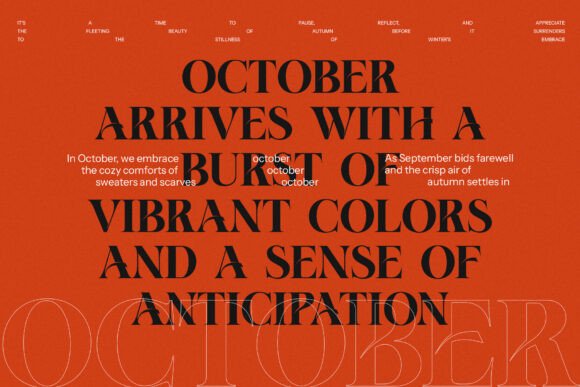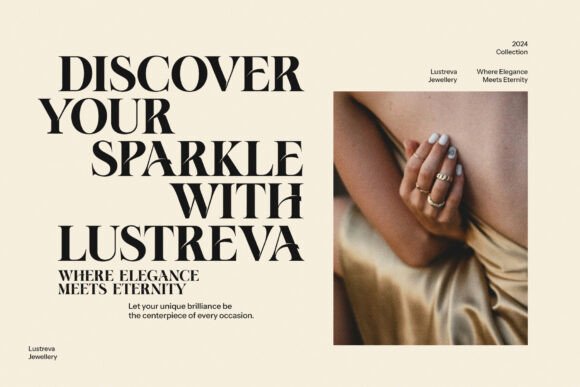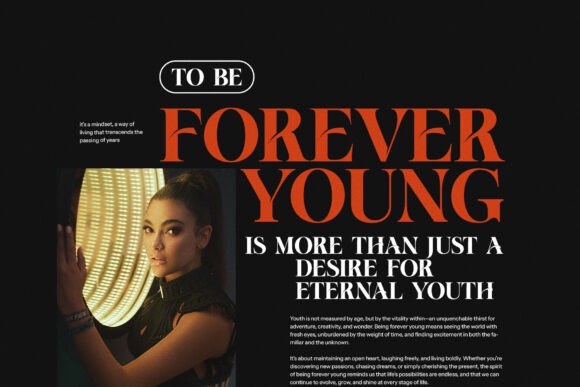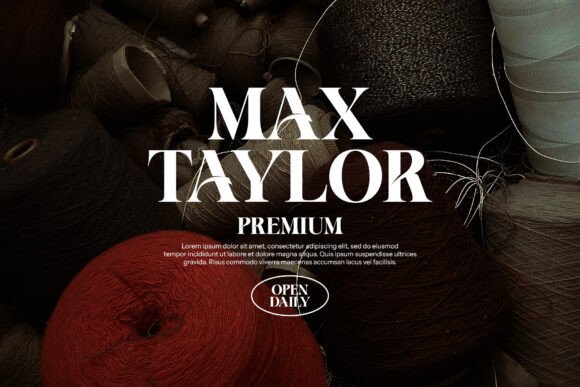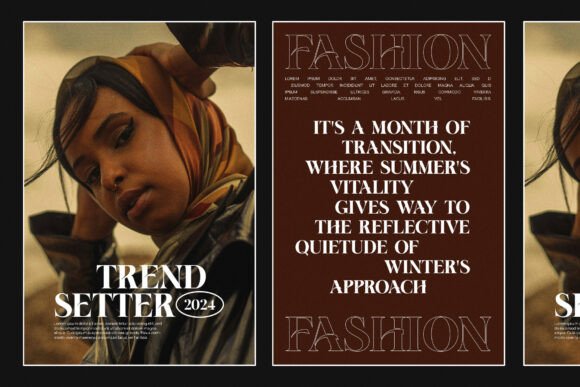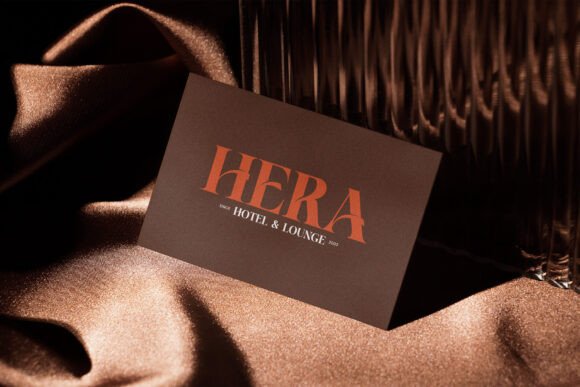
Discover the Best of October Font: Elevate Your Designs with Elegance and Sophistication
Are you tired of using the same old fonts for your designs? Look no further! The Best of October Font is here to revolutionize your branding, logos, and graphics with its luxurious, serif style. This exquisite font is crafted to bring refinement and sophistication to any project, making it perfect for designers and crafters who strive for excellence.
What Makes Best of October Font Stand Out?
This stunning font boasts a range of distinctive features that set it apart from the rest. With its elegant, serif design, it exudes luxury and refinement, making it ideal for high-end branding and logo design. The font features a variety of ligatures and alternate options, allowing you to add a touch of uniqueness to each design. Whether you’re working on a branding project, social media graphics, or wedding designs, this font is sure to impress.
Key Features of Best of October Font
- Luxurious, Serif Style: The Best of October Font features a sophisticated, serif design that’s perfect for high-end branding and logo design.
- Distinctive Ligatures and Alternates: The font includes a range of ligatures and alternate options, allowing you to add a touch of uniqueness to each design.
- High-Quality Presentation: With its clear and readable design, this font is perfect for projects where presentation is key, such as logos, branding, and advertising.
- Versatile: The Best of October Font is suitable for a wide range of applications, including branding projects, logos, social media graphics, advertisements, labels, product packaging, photography, wedding designs, watermarks, invitations, stationery, and more.
Why Choose Best of October Font?
With so many fonts available, why choose the Best of October Font? Here are just a few reasons why this font stands out:
- Elegance and Sophistication: This font offers a level of elegance and sophistication that’s hard to find in other fonts.
- Readability: The clear and readable design makes it perfect for projects where text needs to be easy to read.
- Uniqueness: The ligatures and alternate options ensure that your designs stand out from the crowd.
- Versatility: This font can be used for a wide range of applications, making it a great addition to any designer’s toolkit.
In conclusion, the Best of October Font is a game-changer for designers and crafters who want to elevate their designs with elegance and sophistication. With its luxurious, serif style, distinctive ligatures and alternates, and high-quality presentation, this font is perfect for a wide range of applications. Whether you’re working on branding and logo design, social media graphics, wedding designs, or advertising and marketing materials, this font is sure to impress. So why wait? Download the Best of October Font today and take your designs to the next level!